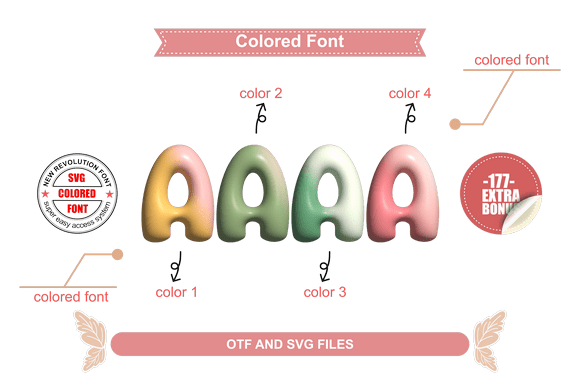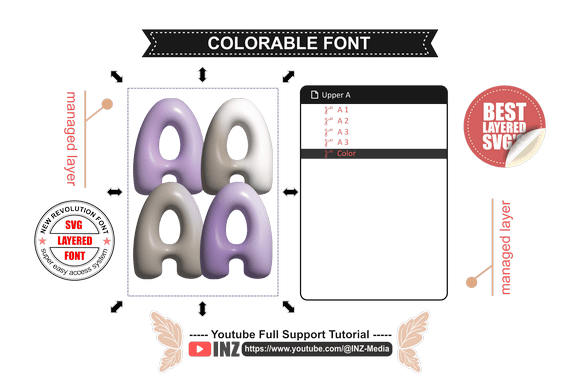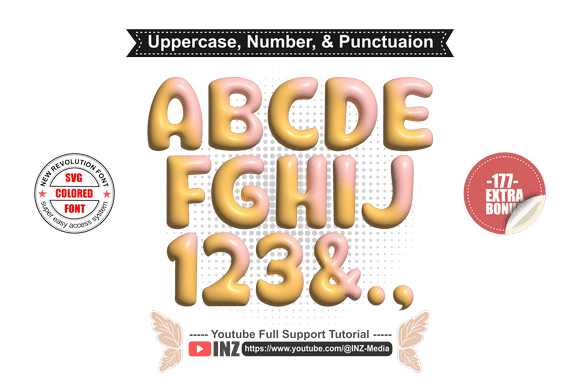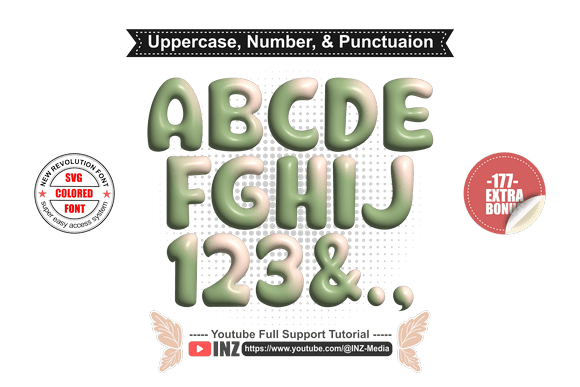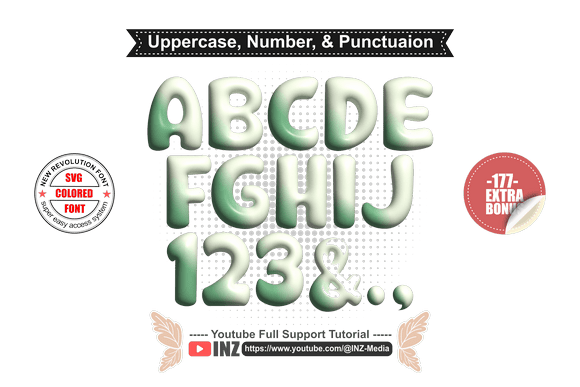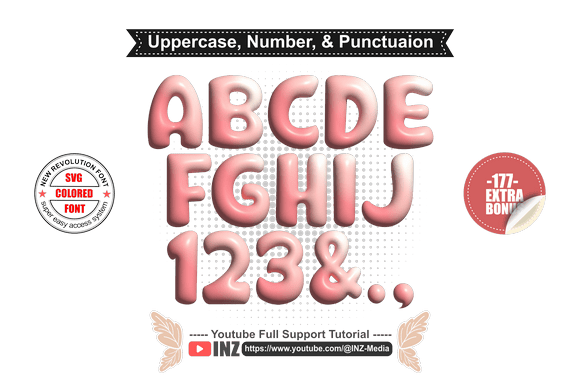
Introducing 3D Flower Font: The Ultimate Typeface for Creative Designs
Are you looking for a font that can add a touch of playfulness and vibrancy to your designs? Look no further than the 3D Flower Font! This lively and cheerful typeface is perfect for designers, crafters, and artists who want to infuse their work with a creative and colorful twist. In this article, we’ll explore the features and benefits of the 3D Flower Font, and how you can use it to take your designs to the next level.
A Font that Blooms Creatively
The 3D Flower Font is a unique and eye-catching typeface that is sure to make your designs stand out. Its 3D-inspired charm and colorful vibes make it perfect for a wide range of projects, from posters and invitations to school projects, greeting cards, and creative art. With this font, you can add a touch of whimsy and fun to your designs, making them more engaging and memorable.
Key Features of 3D Flower Font
- Playful Energy: The 3D Flower Font is designed to add a touch of playfulness and energy to your designs, making it perfect for projects that require a creative and youthful vibe.
- Colorful Vibes: With its bright and vibrant colors, this font is sure to add a pop of color to your designs and make them more visually appealing.
- Experiment with Colors: One of the best things about the 3D Flower Font is its color capabilities. Experiment with different colors and combinations to find the perfect look for your design.
- Mix and Match: Don’t be afraid to mix and match the 3D Flower Font with other fonts and design elements to create a unique and eye-catching design.
- Use in Combination with Other Design Elements: The 3D Flower Font can be used in combination with other design elements, such as images, shapes, and textures, to create a visually appealing design.
The 3D Flower Font is a unique and creative typeface that is perfect for designers, crafters, and artists who want to add a touch of playfulness and vibrancy to their designs. With its 3D-inspired charm and colorful vibes, this font is sure to make your designs stand out. Whether you’re working on posters, invitations, school projects, greeting cards, or creative art, the 3D Flower Font is the perfect choice. So why wait? Download the 3D Flower Font today and start creating stunning and colorful designs!
Get Creative with 3D Flower Font
Ready to get creative with the 3D Flower Font? Here are some project ideas to get you started:
- Party Invitations: Use the 3D Flower Font to create colorful and playful party invitations that will set the tone for a fun and festive celebration.
- School Projects: Add a touch of creativity and whimsy to school projects, such as book reports, science fair projects, and presentations.
- Greeting Cards: Use the 3D Flower Font to create unique and colorful greeting cards for special occasions, such as birthdays, holidays, and weddings.
- Posters and Flyers: Create eye-catching posters and flyers that will grab attention and make your message stand out.